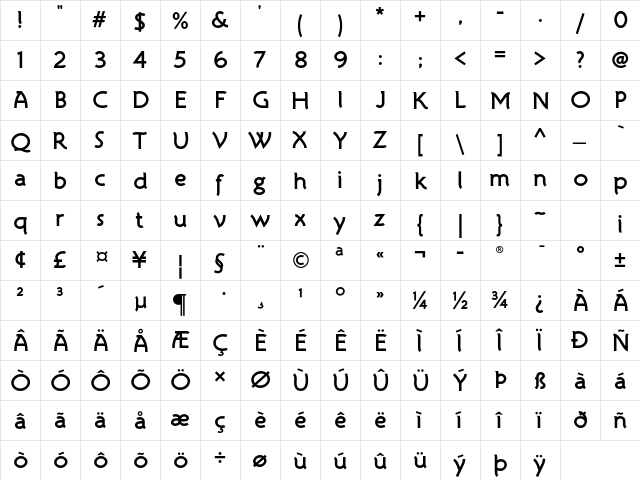
Atelier Sans ITC Std Bold
| Designer | Nick Curtis |
Design Context for Atelier Sans ITC Std Typeface
Atelier Sans ITC Std is a composed and adaptable typeface that performs quietly and consistently across a wide range of design contexts. Its bold stroke weight gives it real presence on the page.